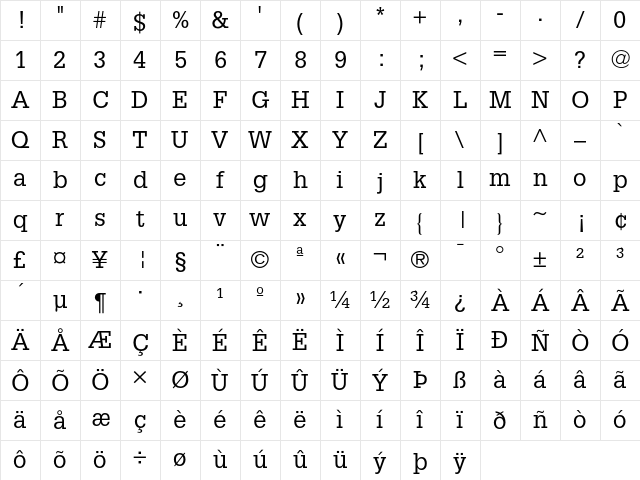
Glypha 55 Roman
Style: 55 Roman
Complete Glypha 55 Roman glyph index. Displaying only characters natively supported by Glypha 55 Roman font.
Design Context for Glypha
Glypha is a composed and adaptable typeface that performs quietly and consistently across a wide range of design contexts.